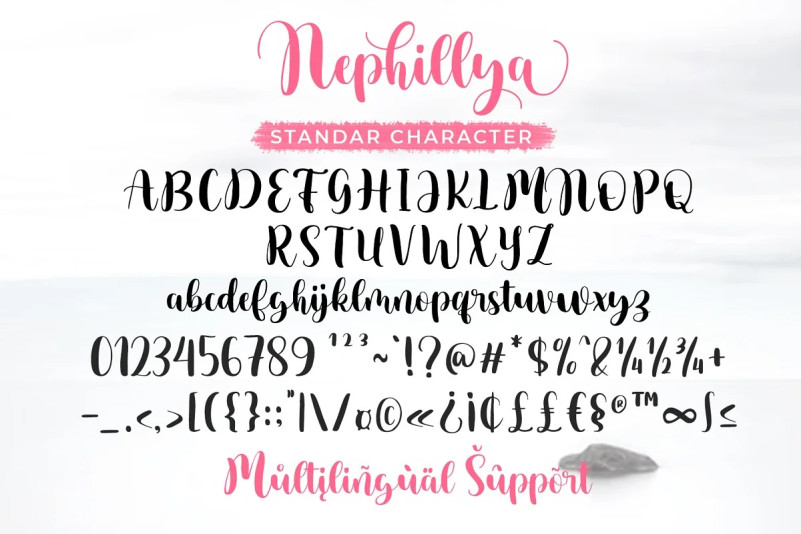
Nephillya Font
Hello guys… I am proud to present this new font. Her name is Nephillya. New natural script Nephillya with handwriting and script style makes this font look elegant, natural, stylish.
Nephillya would be perfect for invitations, logos & branding, photography, advertising, watermarks, social media posts, product packaging, product designs, labels, wedding designs, stationery, special events, or anything that requires a handwritten feel.
Nephillya Script comes with 411 glyphs. Alternate characters are divided into several Open Type features such as ,Stylistic Alternates. The Open Type feature can be accessed using Open Type savvy programs such as Adobe Illustrator, Adobe InDesign, Adobe Photoshop version of Corel Draw X, and Microsoft Word. And this Font has provided PUA unicode (custom coded font). so that all alternative characters can be easily accessed in full by a craftsman or designer.